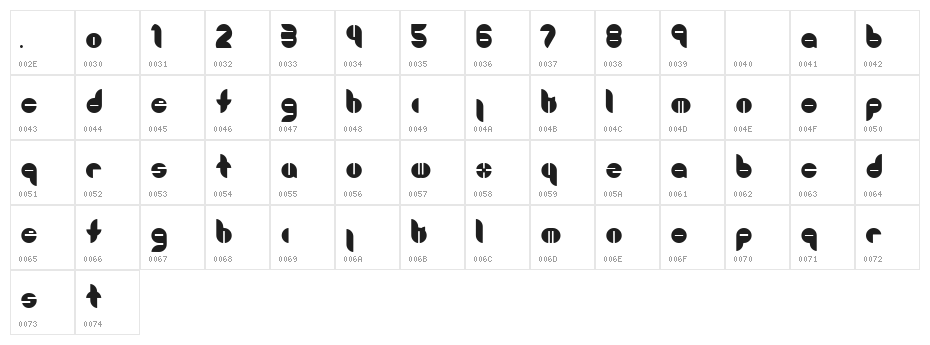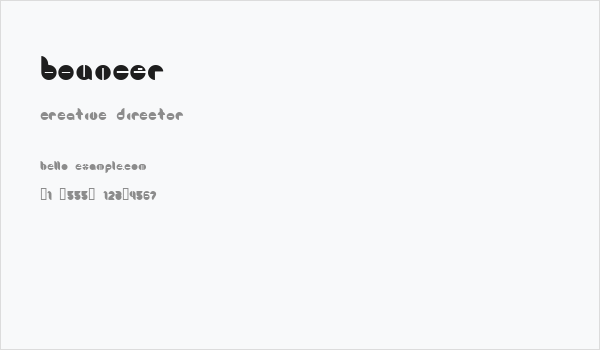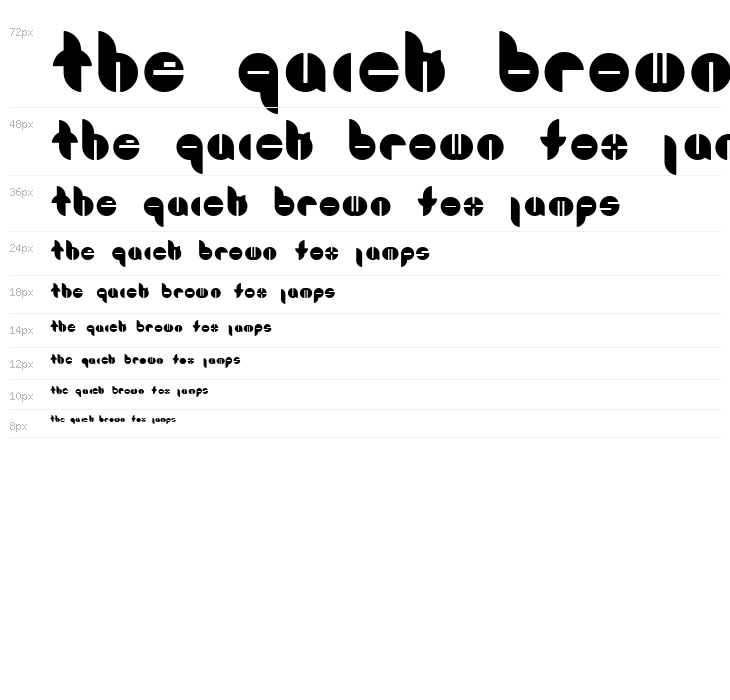
Bouncer Font
Bouncer Description
This font features a bold and futuristic design with geometric shapes and a unique, playful style. The characters are constructed with solid, rounded forms and distinct cutouts, creating a sense of movement and energy. The uppercase and lowercase letters maintain a consistent style, with a focus on circular and semi-circular elements. The numerals are equally bold, with a strong presence that complements the overall aesthetic. Special characters are designed with the same geometric flair, adding to the font's cohesive look. This font is ideal for projects that require a modern and eye-catching typeface.
Proposed ProjectsIdeal for branding, posters, album covers, and any project needing a modern, standout typeface.